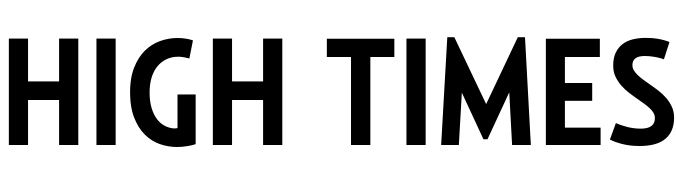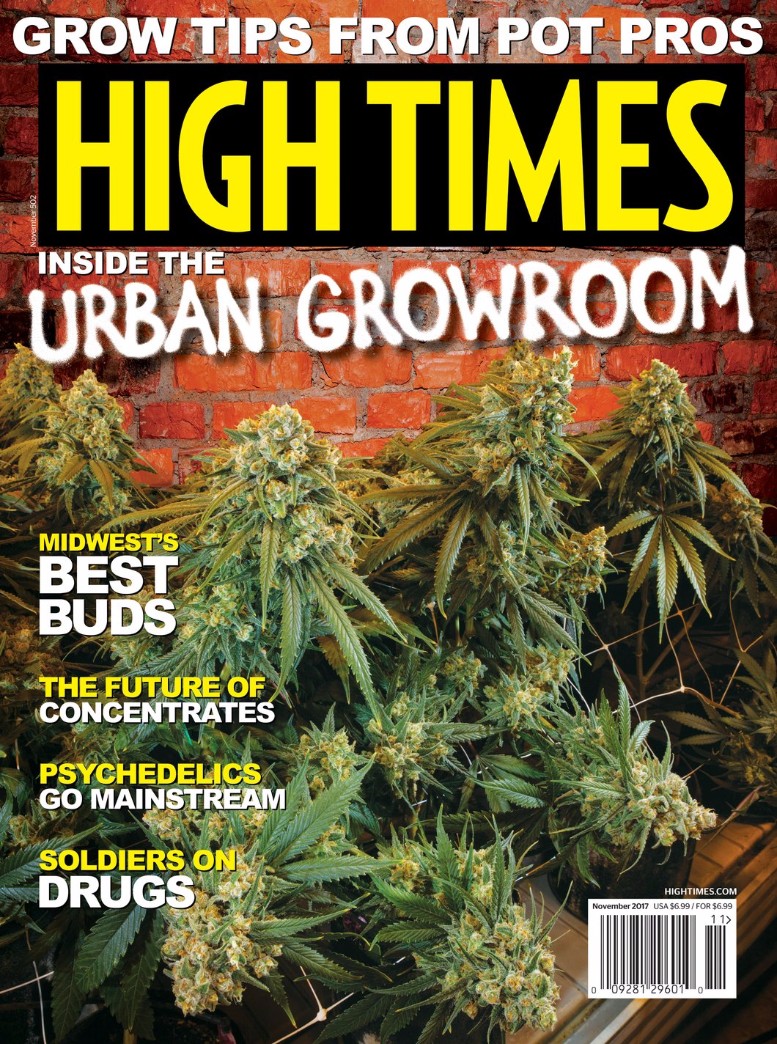
High Times (magazine) Font
BookHigh Times is a prominent publication in the world of cannabis, founded in 1974 by Tom Forcade. The magazine covers a wide range of topics related to cannabis, including cultivation and strain reviews, political and legal issues, and culture and entertainment.
The magazine cover shown above is for Issue 502 from November 2017. Relay Compressed Bold appears to have been slightly modified for the magazine's logo. Relay is a 40-style sans serif font created by Cyrus Highsmith and released by Occupant Fonts in 2002.